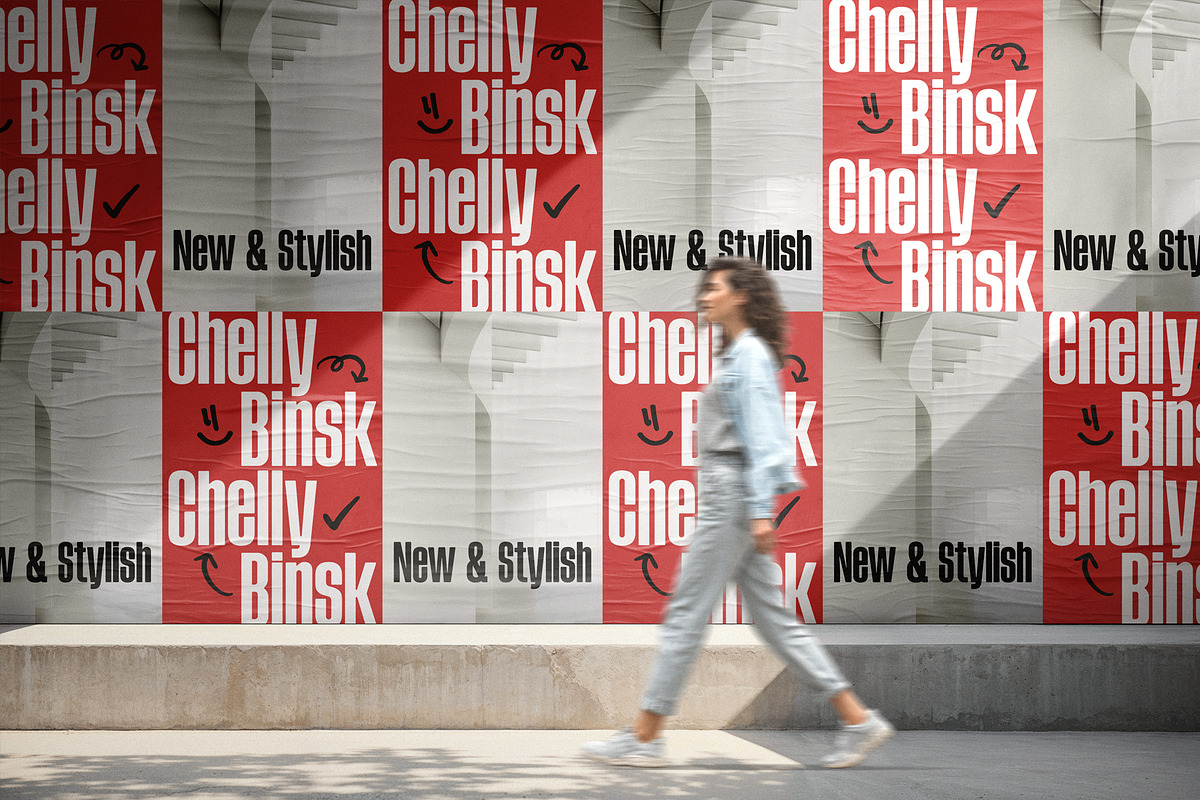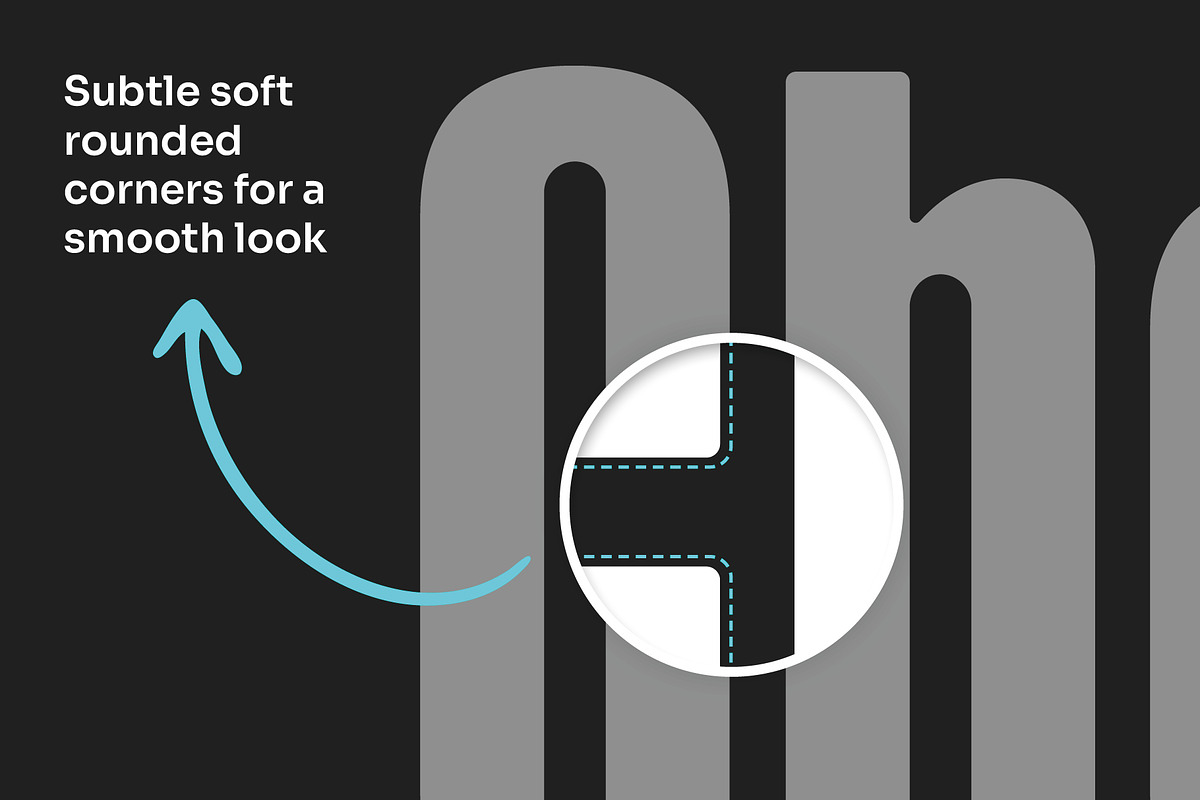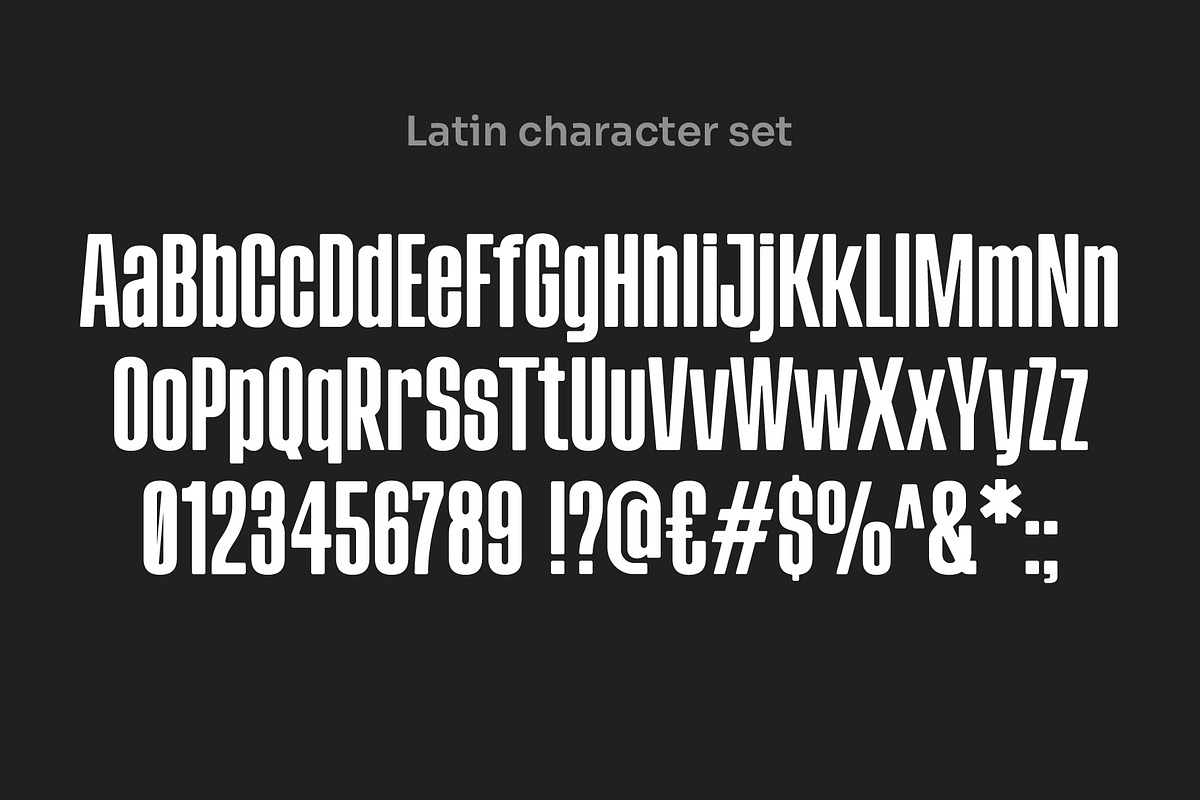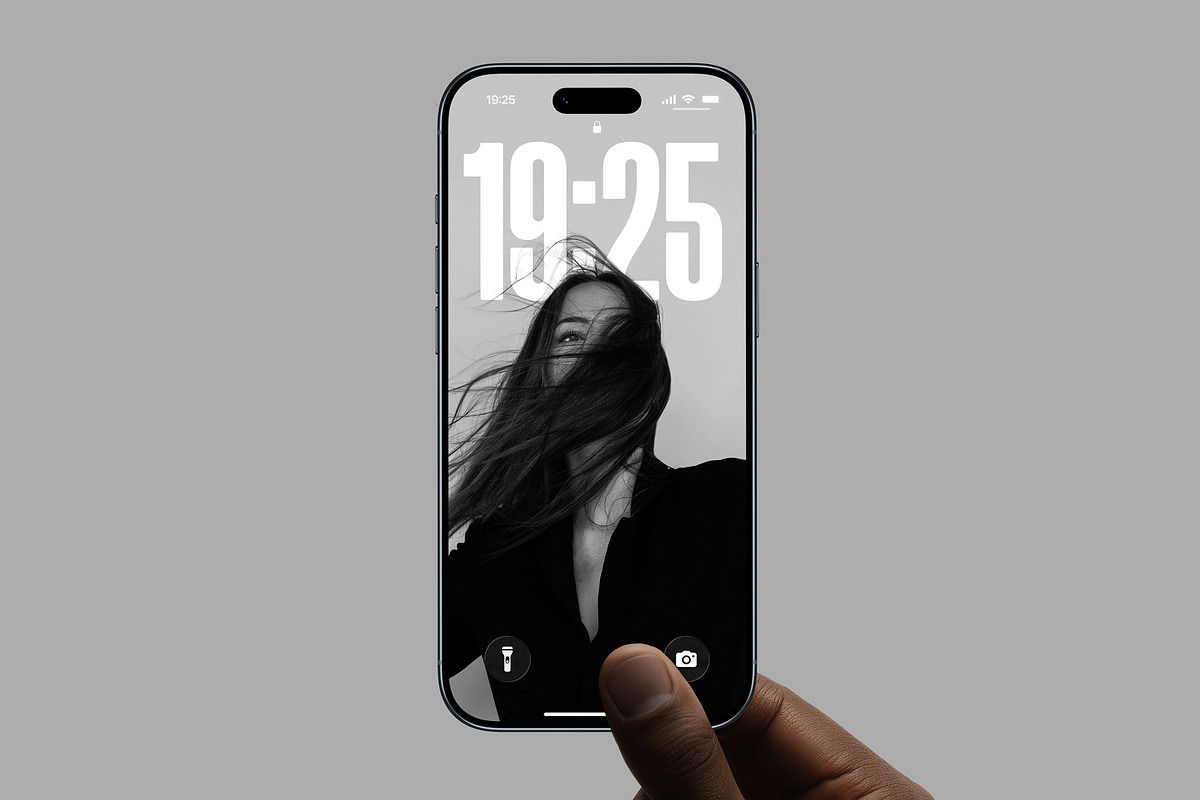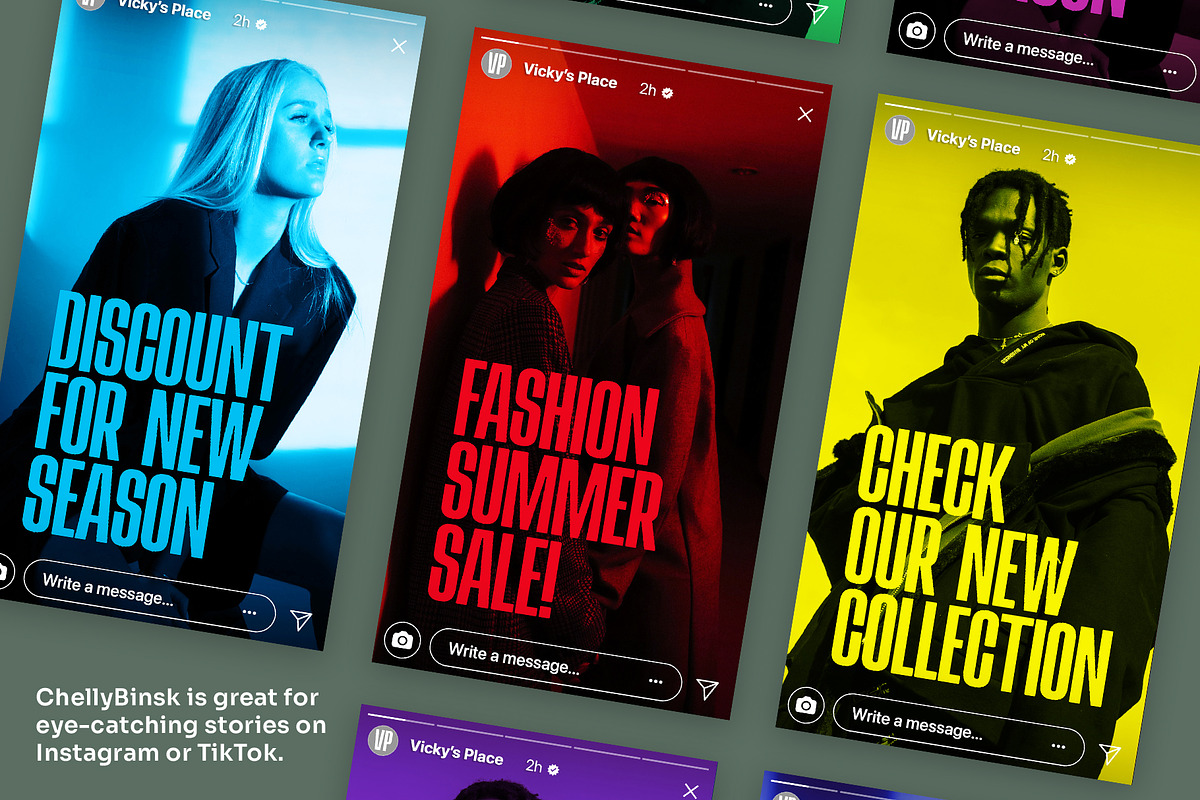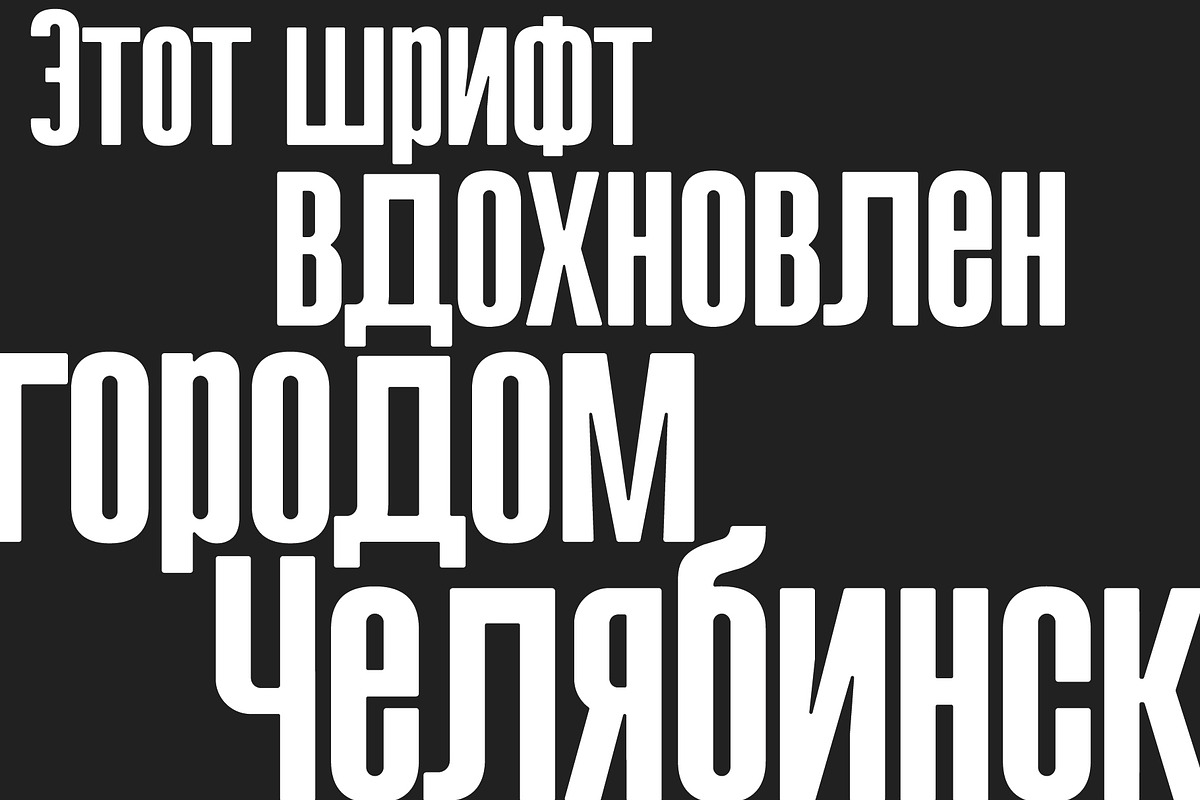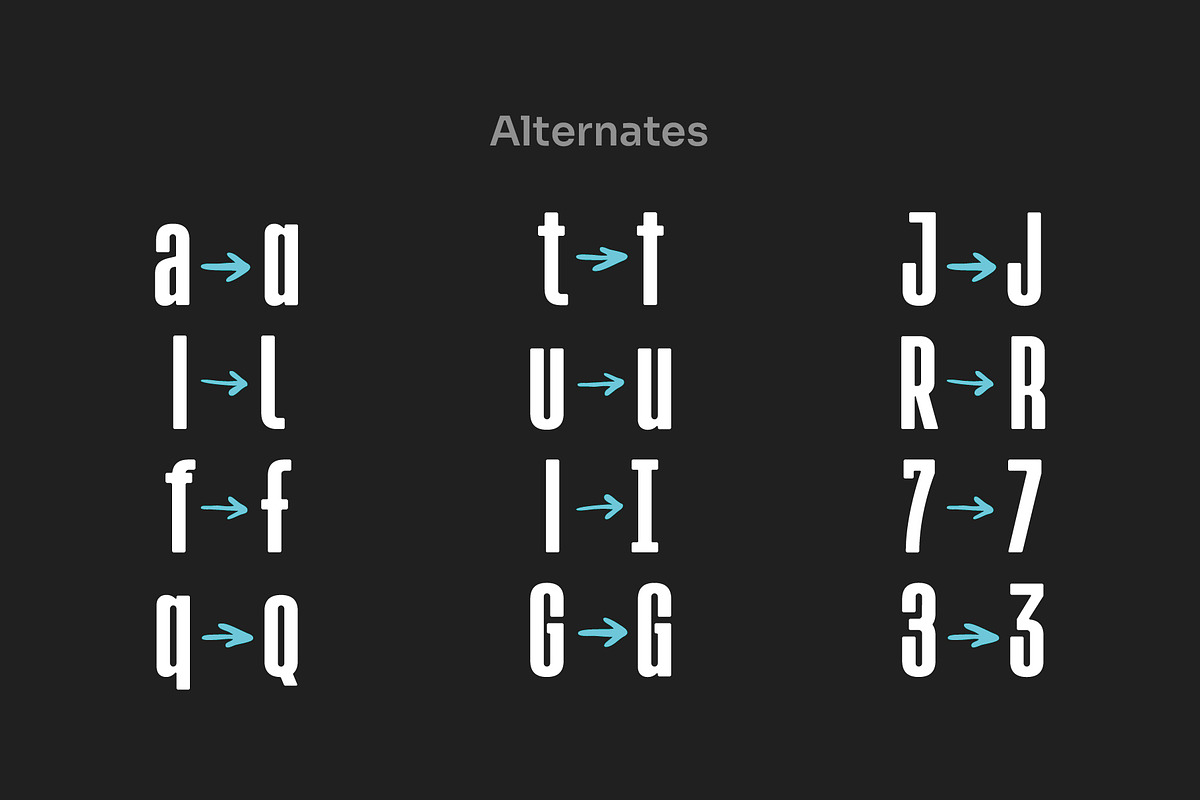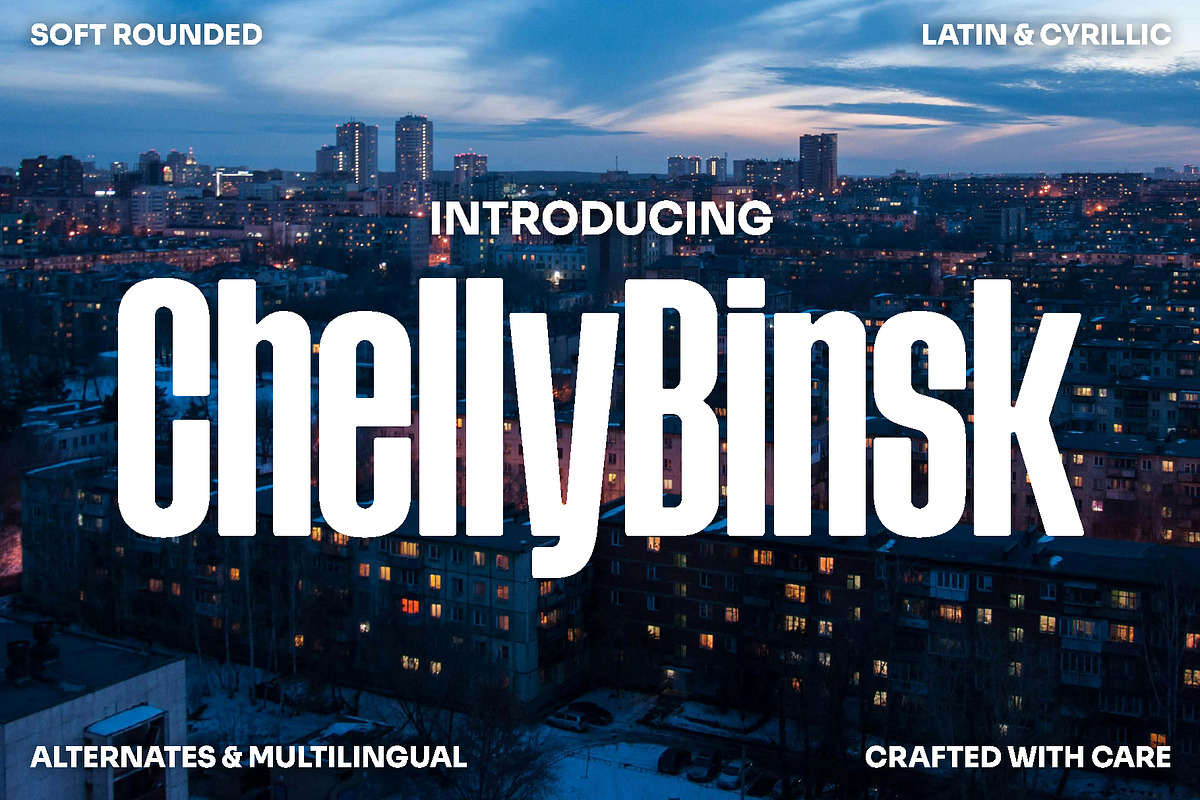
ChellyBinsk - Bold Condensed
Crafted for big statements in titles, magazines, signage, and digital media.
ChellyBinsk is a bold, condensed sans serif with smooth rounded corners, multilingual support, and handy alternates. Crafted with care, perfect for headlines, logos, and branding.
ChellyBinsk is a typeface with a modern edge and subtle rounded corners that give it a sleek yet approachable personality. Carefully crafted with attention to detail, this font is designed to deliver both strength and style in any project.
Its condensed proportions make it highly space-efficient while maintaining excellent legibility, making ChellyBinsk an ideal choice for headlines, impactful logos, contemporary branding, editorial layouts, and digital design. With multilingual support and a selection of alternates, it adapts seamlessly to diverse creative needs.
- 1 weight (Bold)
- Alternates included for characters: a, f, G, I, J, l, q, R, t, u, 3, 7
- Multilingual support with Latin and Cyrillic characters
- Clean lines with soft subtle rounded edges
- Modern condensed sans serif style
- Perfect for headlines, branding, logos, posters, and social media
Bring power, versatility, and modern style to your projects with ChellyBinsk, a font made with care to help your words stand tall.